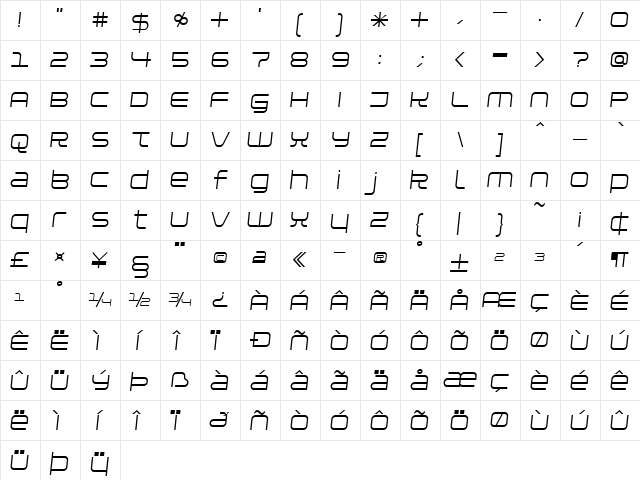
Installer Regular Italic
Design Context for Installer Typeface
Installer takes a measured approach to typography — its balanced proportions and neutral character make it a reliable workhorse for both digital and print work. The dynamic lean of this cut emphasises speed and emphasis in any layout.
Pro Tip: Try Installer for annotation and caption copy alongside an upright companion — the contrast in angle creates a dynamic but ordered typographic system.